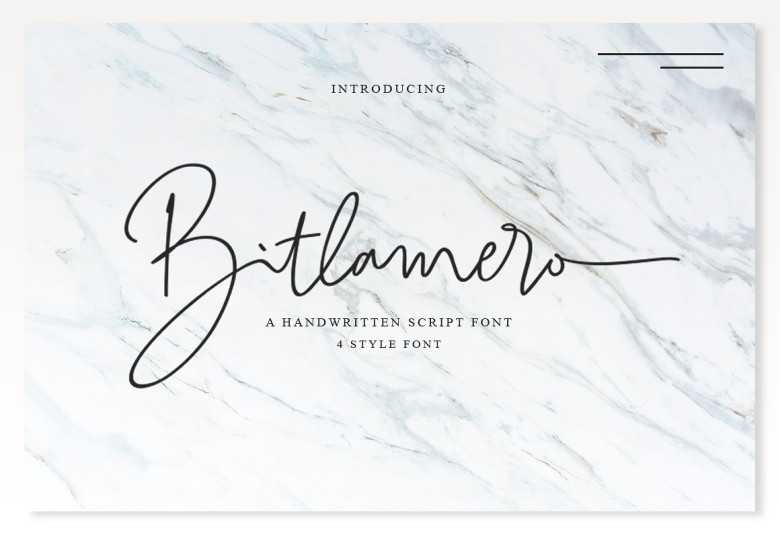
Bitlamero Signature Font
A handwritten script font by Ijemrockart. Introducing Bitlamero Font. Bitlamero is a handwritten signature typeface coming with more than 389 stylistic ligatures. Its classy energetic look makes it the perfect fit for feminine logos, printed quotes, invitation cards, social media headers, product packaging and a lot more!